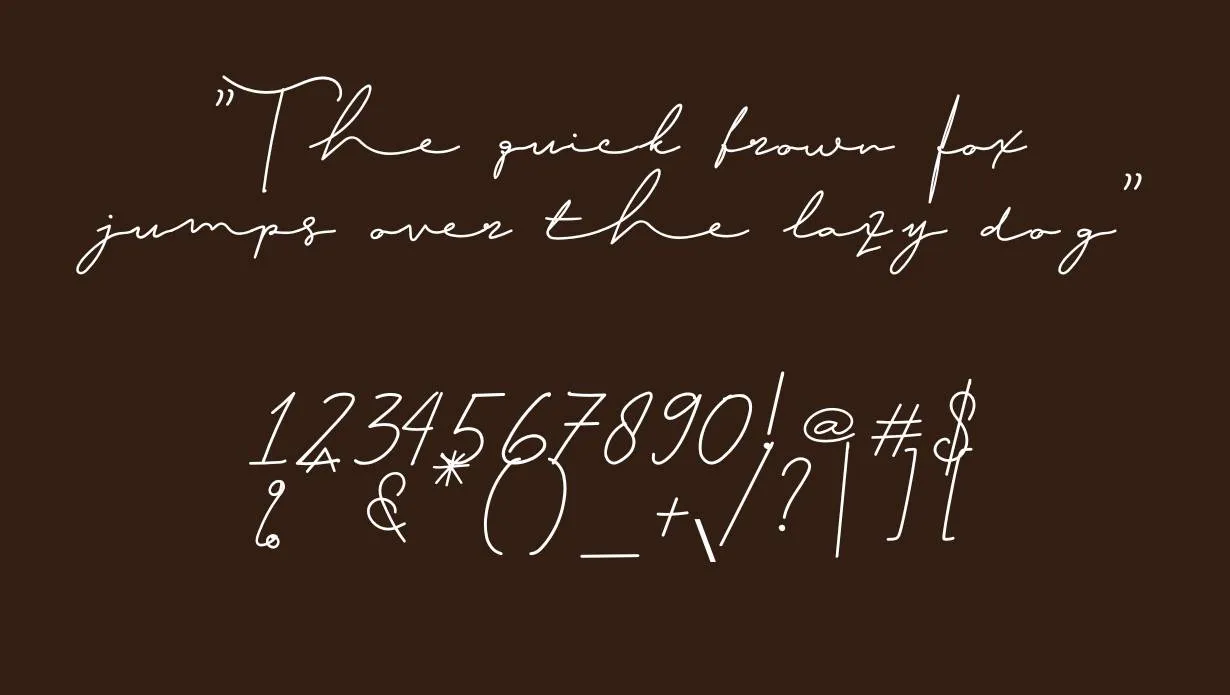
The Yoshi Font is a lively and friendly typeface that injects a playful spirit into your designs. With its whimsical characters and vibrant style, it’s perfect for projects that aim to capture a sense of joy and creativity. This font supports commonly used file formats like TTF and OTF, ensuring seamless integration into various design software.
Whether you’re creating invitations or eye-catching posters, The Yoshi Font brings a delightful and animated touch to your visual creations.